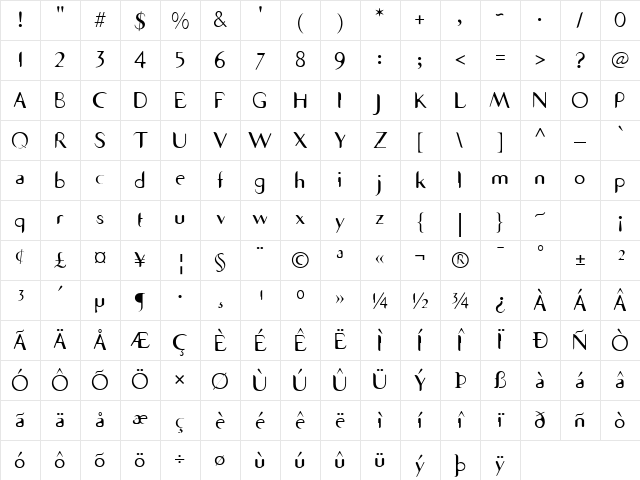
SevenSansICG Medium
Complete SevenSansICG Medium glyph index. Displaying only characters natively supported by SevenSansICG Medium font.
Design Context for SevenSansICG
SevenSansICG is a composed and adaptable typeface that performs quietly and consistently across a wide range of design contexts.